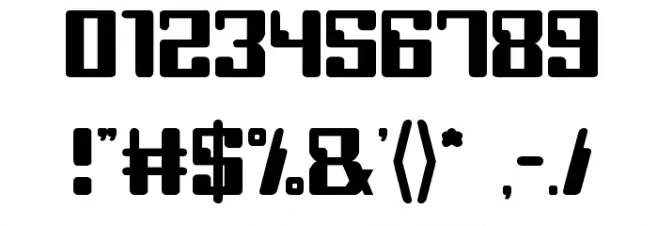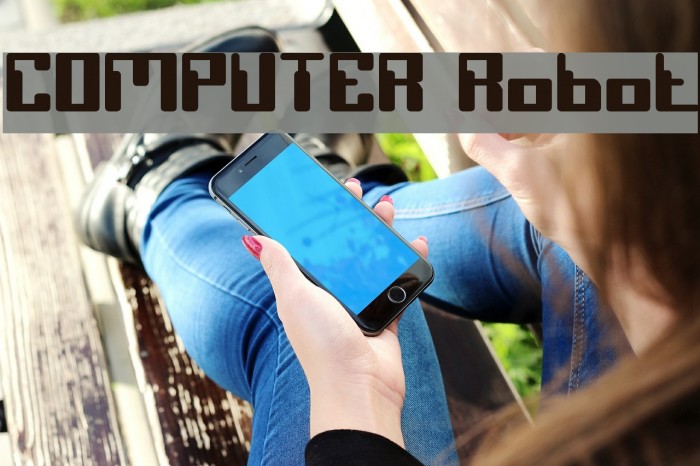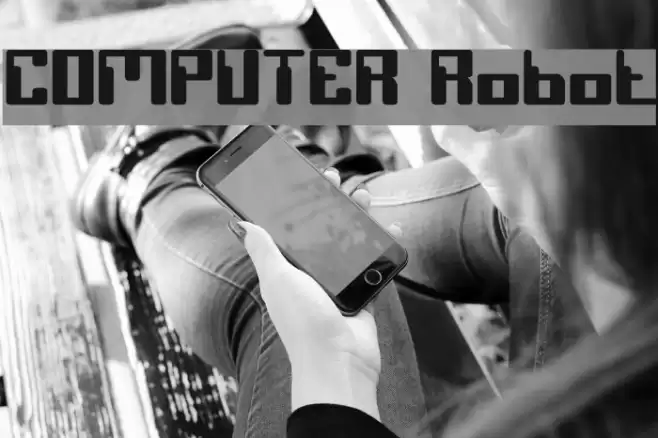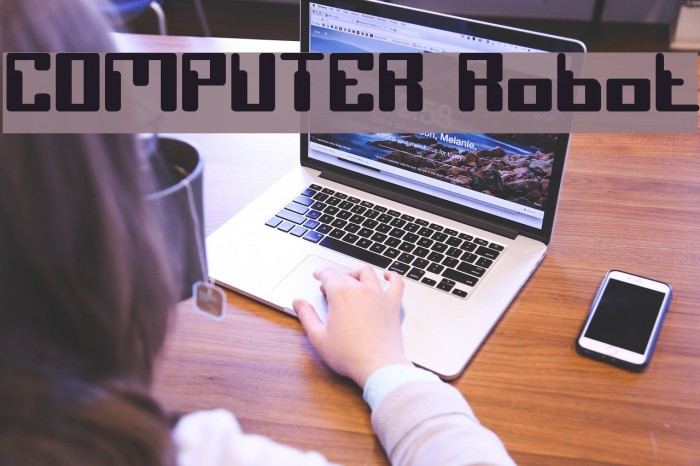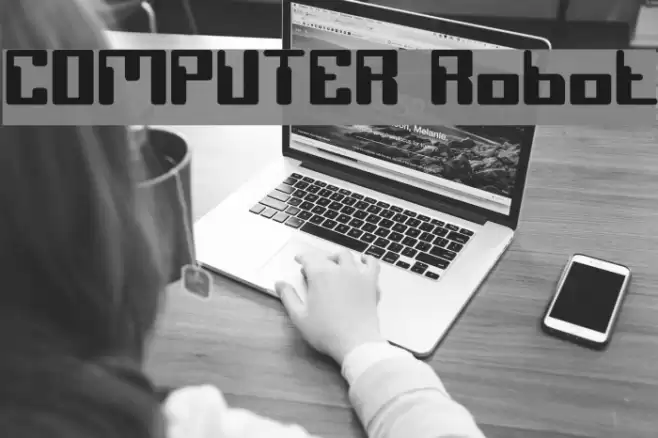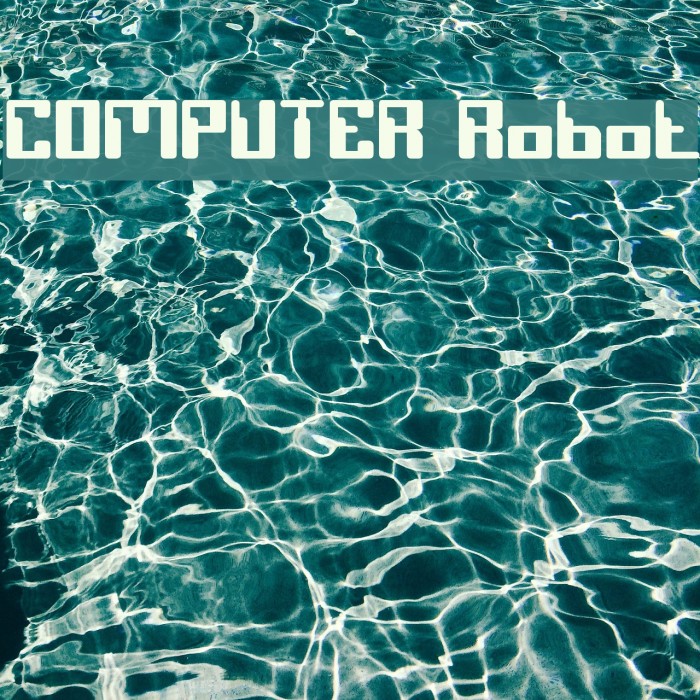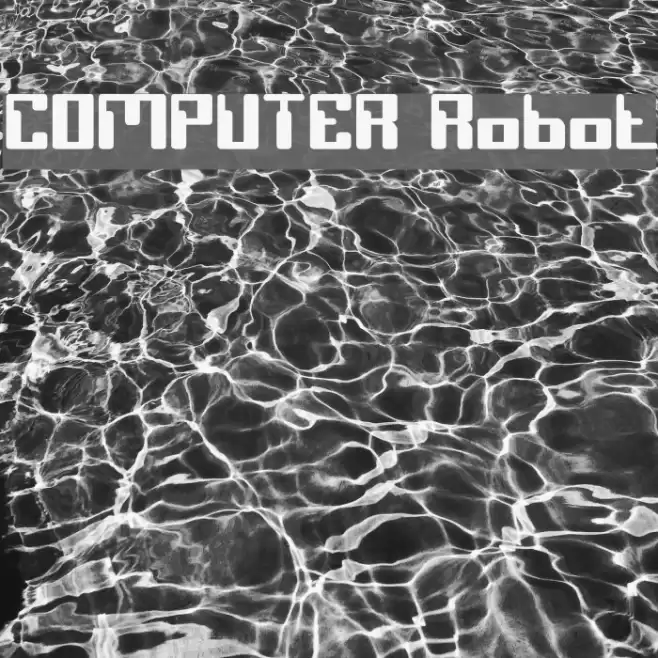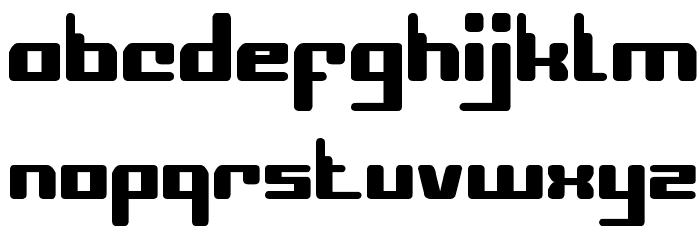
COMPUTER Robot Font
COMPUTER Robot Description
This font features a bold, futuristic design with a distinctly geometric and blocky appearance. Each character is crafted with uniform thickness, creating a cohesive and modern aesthetic. The uppercase and lowercase letters maintain a consistent style, with rounded edges that soften the otherwise rigid structure. Numbers and special characters follow the same design principles, ensuring a seamless integration across all text elements. The font's unique style makes it ideal for projects that require a contemporary and tech-inspired look, while its readability ensures it remains functional for various applications.
| Use Case | Headlines, Logos, Digital Interfaces |
| Proposed Projects | Ideal for technology branding, video game titles, sci-fi book covers, and digital interfaces. |